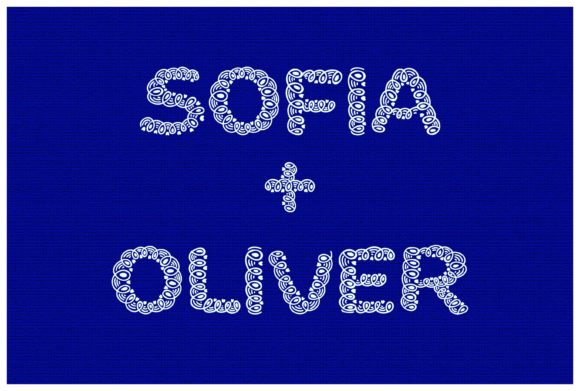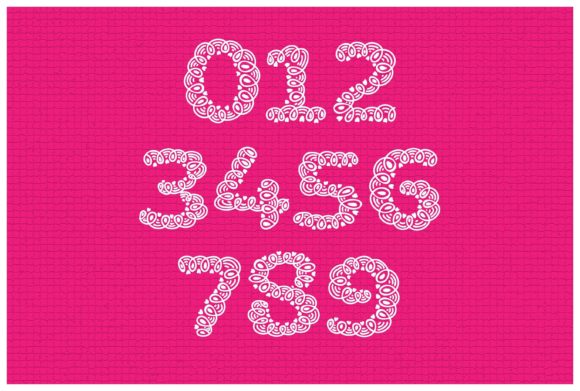
Celebrating Joy with Cake Font: The Ultimate Design Companion
Remember the moment when you stumbled upon the perfect font for your little sister’s birthday invitation? It’s that instant when the entire design comes together, and you can’t help but feel a sense of excitement and pride. For designers, finding the right font can be a game-changer, setting the tone for the entire project.
Cake Font is that magical solution for designers looking to add a touch of youth and joy to their designs. This incredibly unique and fun decorative font is perfect for party invitations, gatherings, and pretty much any design that requires a dash of whimsy. Its playful nature makes it a valuable asset for designers who want to convey a sense of celebration and happiness in their work.
Cake Font Key Features
- Font Family: Cake Font is a unique, hand-drawn font designed to resemble cake and pastries.
- Character Set: Includes a wide range of characters, including uppercase and lowercase letters, numbers, and special characters.
- Unique Characteristics: The font features intricate, hand-drawn details and textures that evoke the look and feel of real cakes and pastries.
Cake Font Review
I recently had the chance to work with Cake Font, and I must say it’s been an interesting experience. Here’s my honest review.
- Cake Font offers a wide range of customization options, making it easy to tailor the font to your specific design needs.
- The font is highly legible, even at smaller sizes, which is perfect for body text or captions.
- Cake Font is fully editable in popular design software, including Adobe Illustrator and Canva.
- Cake Font can be quite bold and playful, which may not be suitable for all design projects, especially those requiring a more professional tone.
- The font may not be the best choice for long blocks of text, as it can start to feel overwhelming and difficult to read.
Cake Font is a great option for designers looking to add some personality to their projects. While it may not be the most versatile font, it’s perfect for designs that require a touch of whimsy and playfulness. With its wide range of customization options and high legibility, Cake Font is definitely worth considering for your next design project.
Tips for Getting the Most Out of Cake Font
Here are some tips to help you get the most out of Cake Font:
- Use Cake Font in conjunction with other creative elements, such as graphics and images, to add visual interest to your designs.
- Experiment with different font sizes and colors to create a unique and eye-catching look.
- Use Cake Font to add a touch of whimsy and playfulness to your designs.
Cake Font is commonly used in:
- Birthday and wedding invitations.
- Cake decorating and baking designs
Alternatives to Cake Font
Great Vibes is a cursive script font that can be used for creating a friendly and approachable tone. It’s ideal for titles, headings, and quotes. Great Vibes is more elegant and sophisticated compared to Cake Font, making it suitable for high-end designs. It has a similar feel to Cake Font but with a more refined look.
Amarante
Amarante is a modern, elegant script font that can be used for creating a sense of luxury and sophistication. It’s ideal for titles, headings, and branding. Amarante is more refined and polished compared to Cake Font, making it suitable for high-end designs. It has a similar feel to Cake Font but with a more dramatic flair.
Playfair Display is an elegant, high-end script font that can be used for creating a sense of luxury and sophistication. It’s ideal for titles, headings, and branding. Playfair Display is more dramatic and refined compared to Cake Font, making it suitable for high-end designs. It has a similar feel to Cake Font but with a more luxurious look.